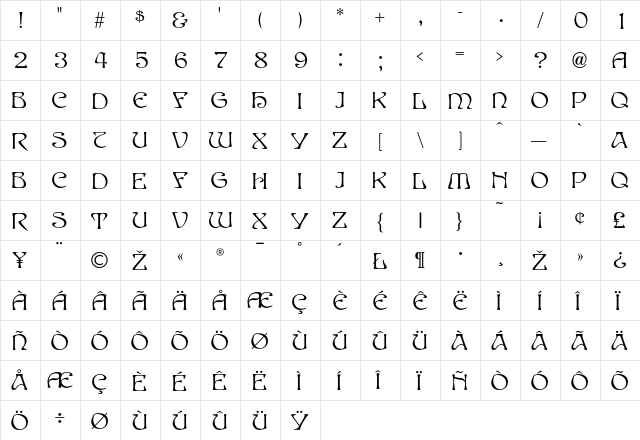
EddaBlack Regular
| Foundry | Digitized by Dan X. Solo. Software Dover Publications, Inc |
Design Context for EddaBlack Typeface
EddaBlack is a composed and adaptable typeface that performs quietly and consistently across a wide range of design contexts.